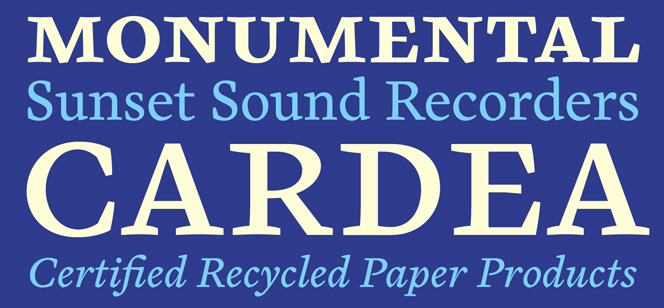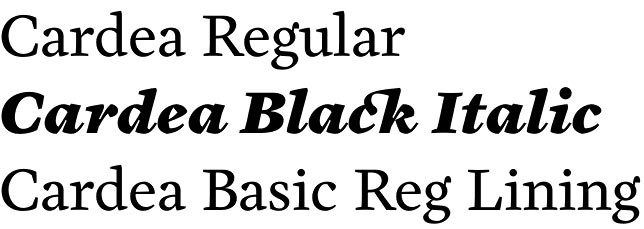
Cardea font
Cardea font by David Cabianca (published in Émigré type library) is a Serif typeface family, the result of a decade of Cabianca’s design work. Cardea font was always intended to mix classic and contemporary features in order to become a vivid, high-contrast, and fresh font that “sparkles” on the page. It’s aimed at the fashion and culture industries through its distinctive structure with concave serifs and solid “letterpress” colours.
Cardea font family was designed mainly for editorial purposes. It offers twelve fonts in three weights – Regular, Bold, and Black, plus their corresponding italics, small caps and a plenty of ligatures and other OpenType goodies.